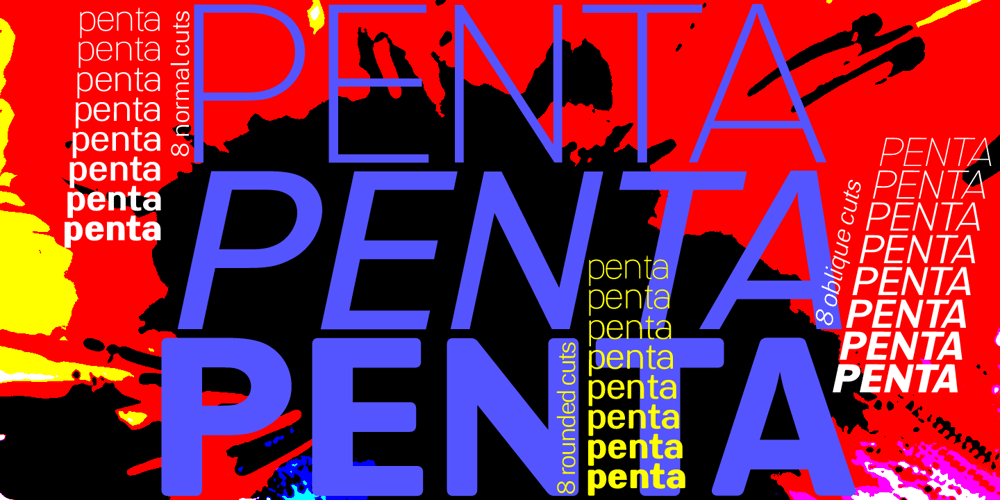
Penta Rounded Font Family was designed by Gert Wiescher and published by Wiescher Design. Penta Rounded contains 8 styles and family package options. This is the rounded version of Penta! »Penta« is a new Sans typeface, designed in the American tradition with contrast between the up- and downstrokes. The contrast is hardly visible on the »thin« cut, but the heavier the weights get, the more contrast becomes visible. That makes this font very useful, almost linear in the lighter weights and very distinct rhythm in the heavier ones. »Penta« is extremly versatile, it can be used for bodycopy in the lighter weights and for heavy headlines.